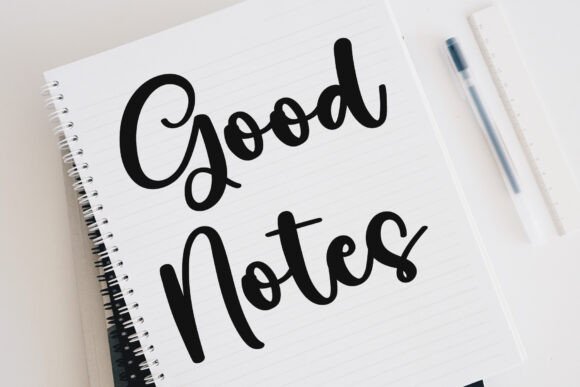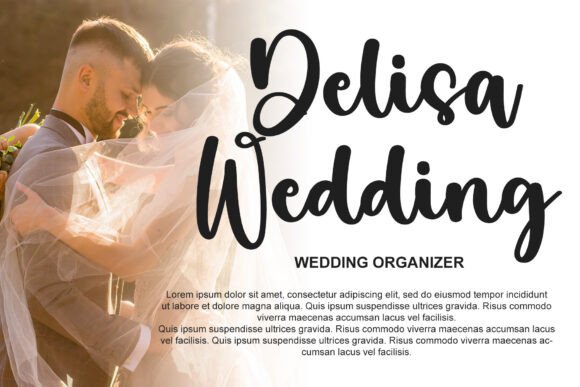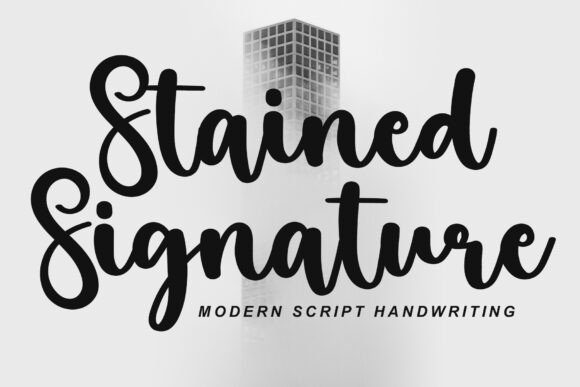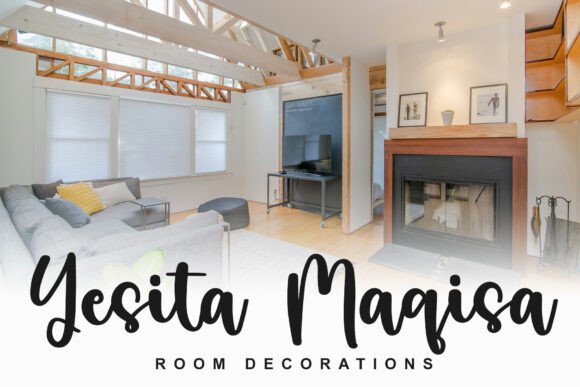
Stained Signature Font
About the Stained Signature Font
Elevate your designs with Stained Signature Font, a font that combines sophistication with readability. Stained Signature is a magical handwritten font carefully created to give a touch of elegance to your designs. Whether you’re looking for fonts for Instagram or calligraphy scripts for DIY projects, this font will turn any creative idea into a true piece of art!